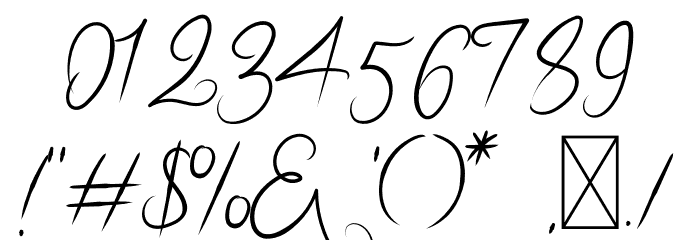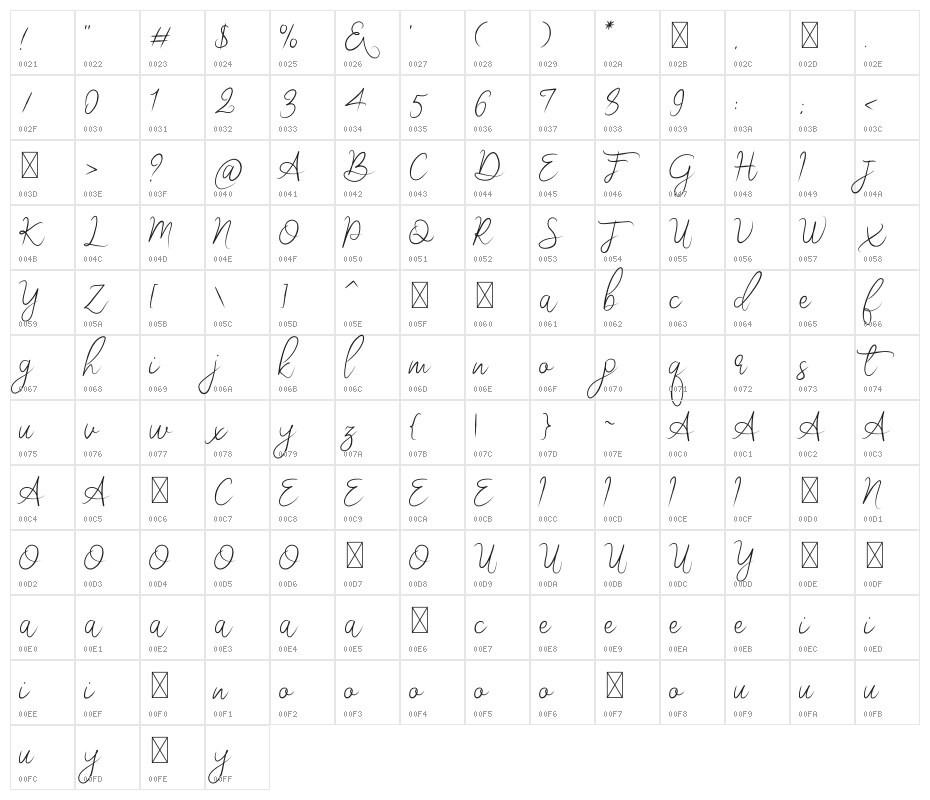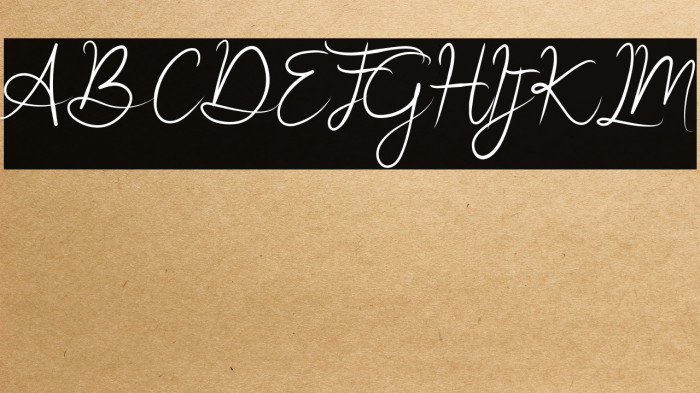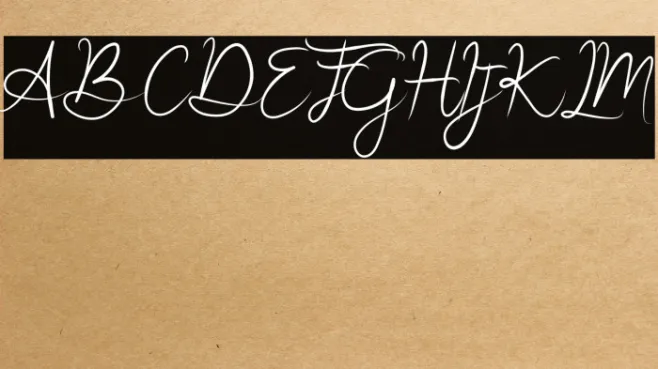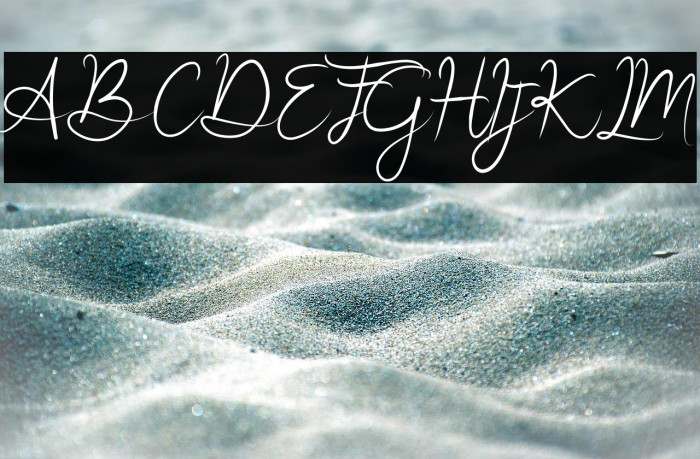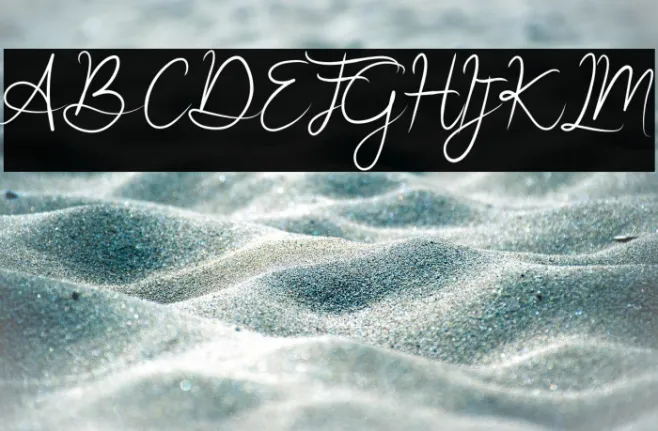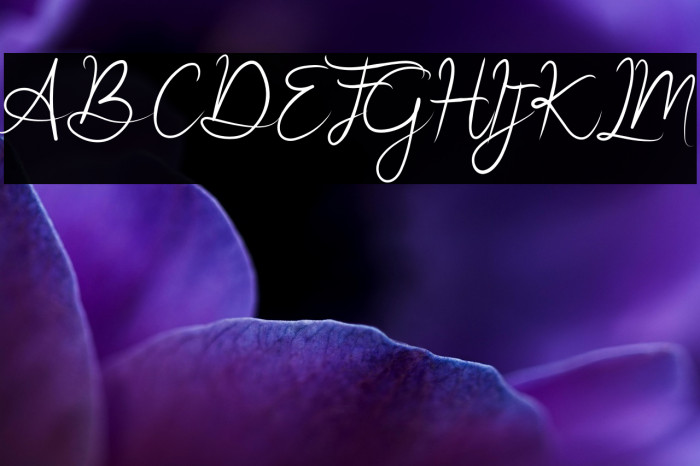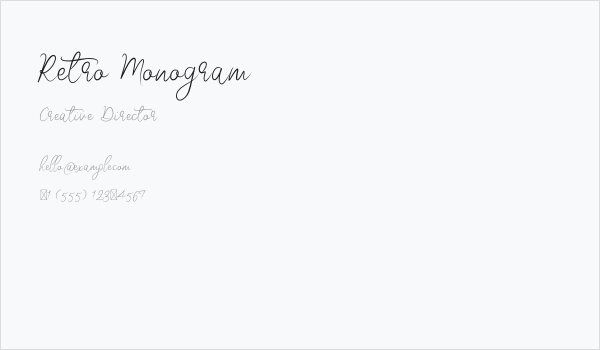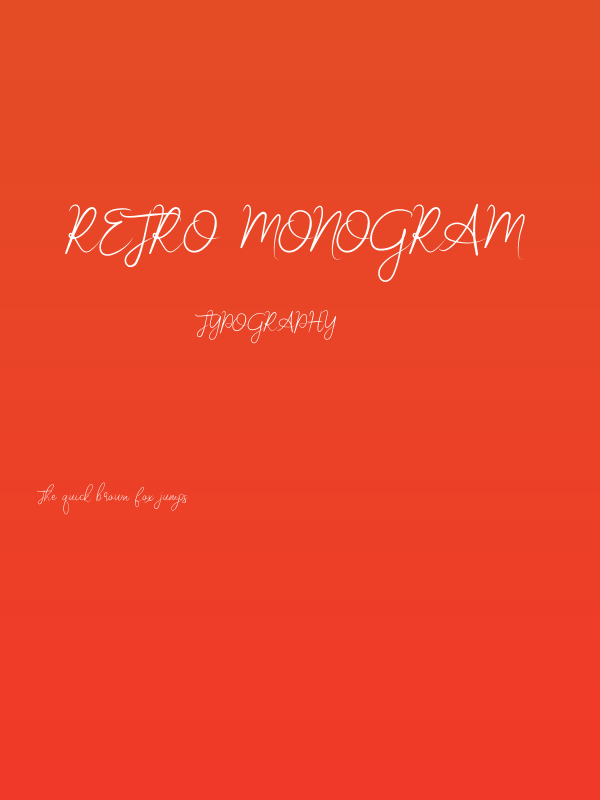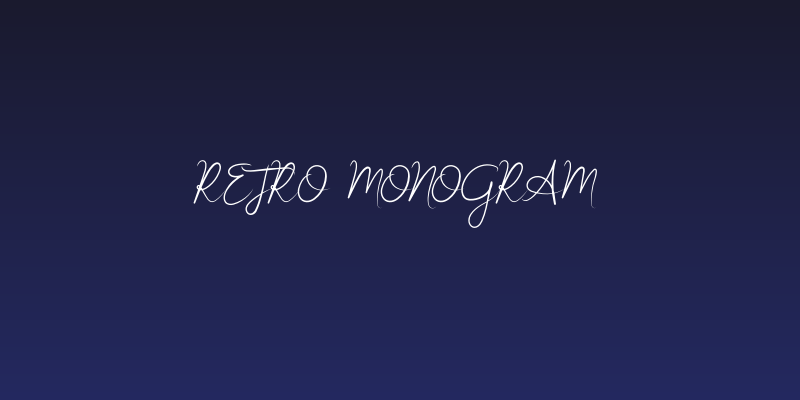
Retro Monogram Font
Retro Monogram Description
This elegant script font features a flowing, cursive style with intricate loops and swashes that give it a sophisticated and artistic appearance. The uppercase letters are tall and graceful, while the lowercase letters maintain a consistent fluidity that enhances readability. The numerals are designed with a similar flair, ensuring a cohesive look across all characters. Special characters are thoughtfully integrated, maintaining the font's overall aesthetic. This font is ideal for projects that require a touch of elegance and refinement, such as wedding invitations, luxury branding, or high-end product packaging.
Overall StyleElegant
Use CaseLogos, Invitations, Branding
Proposed ProjectsWedding invitations, luxury branding, high-end product packaging.